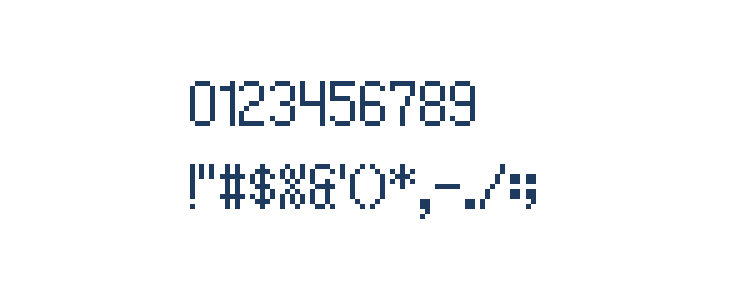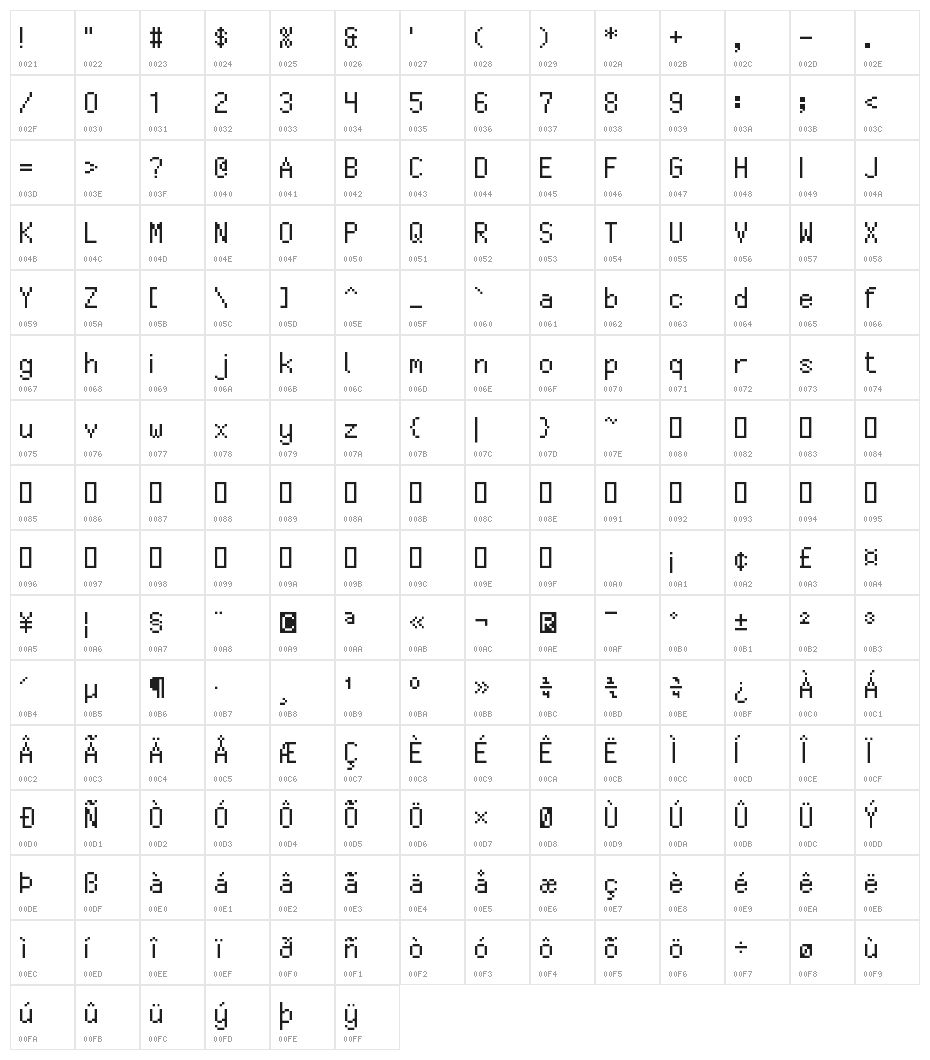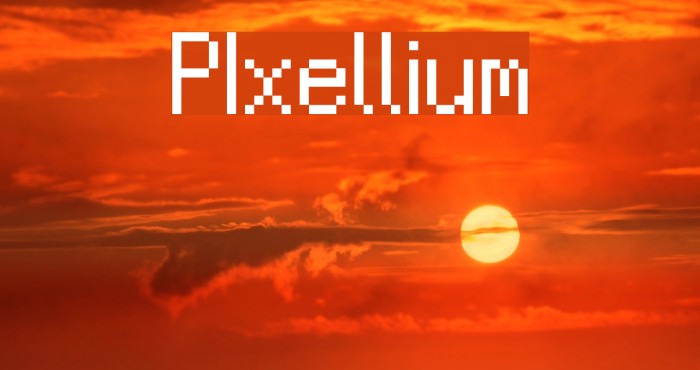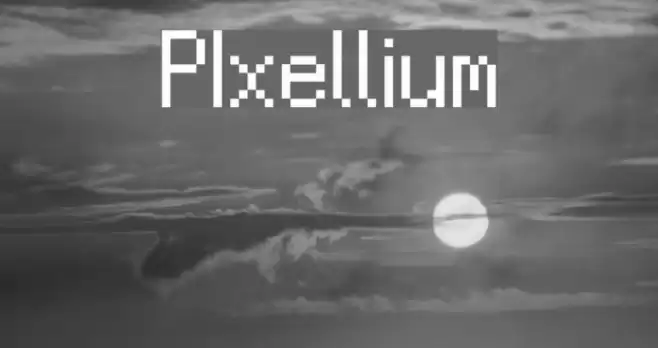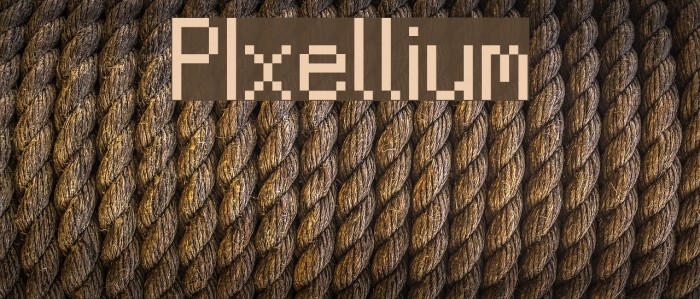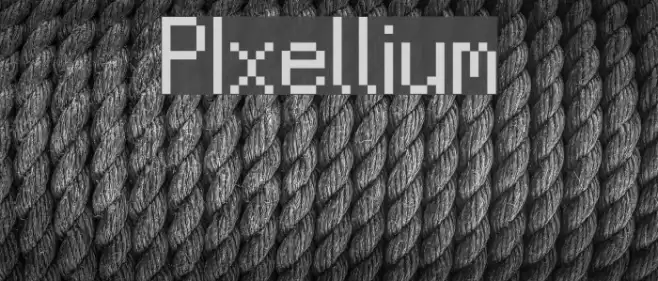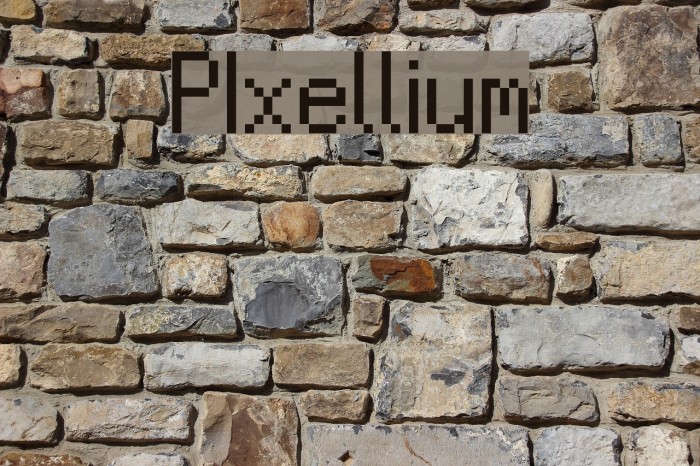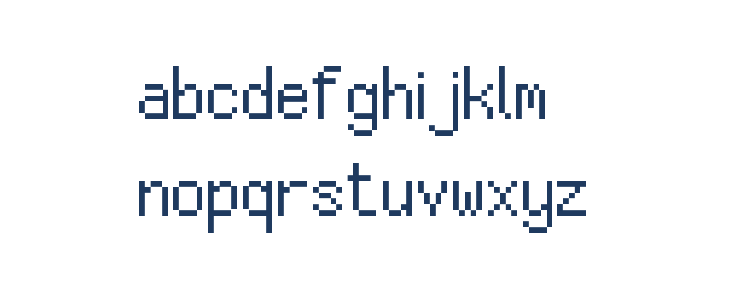
PIxellium Font
PIxellium Description
This font features a pixelated, grid-like design reminiscent of early digital displays and retro video games. Each character is constructed with a uniform grid, giving it a blocky and geometric appearance. The uppercase and lowercase letters maintain a consistent height, enhancing readability while preserving the nostalgic aesthetic. Numbers and special characters follow the same pixelated style, ensuring a cohesive look across all glyphs. The font's simplicity and clarity make it ideal for projects that aim to evoke a sense of nostalgia or digital minimalism.
Overall StyleVintage
Proposed ProjectsIdeal for retro video game designs, digital art projects, tech-themed posters, and any creative work that requires a nostalgic digital touch.